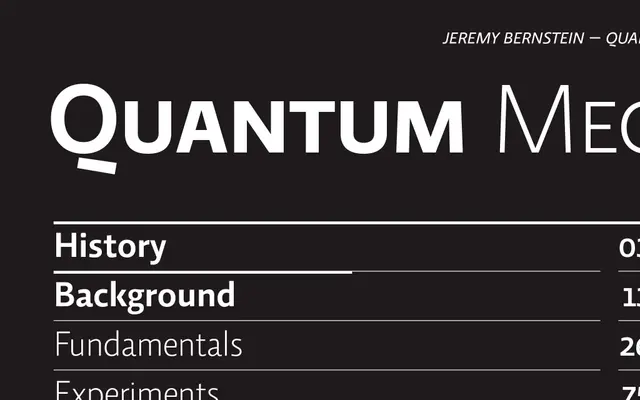
Relato Sans
A humanist sans designed as the companion to Relato Serif, sharing its proportions and x-height across six weights from Light to Black.
Designed as the sans counterpart to Relato Serif, it shares proportions, x-height and italic construction with its serif companion, giving designers a coherent pairing for mixed-setting projects. Six weights from Light to Black each come with matching italics, totalling twelve styles. The character set covers Western and Central European Latin with a range of currency symbols, fractions and punctuation for general text use.
Described explicitly as humanistic with a contemporary cut, sharing proportional and structural DNA with its serif counterpart Relato Serif, placing it firmly in the humanist sans tradition.